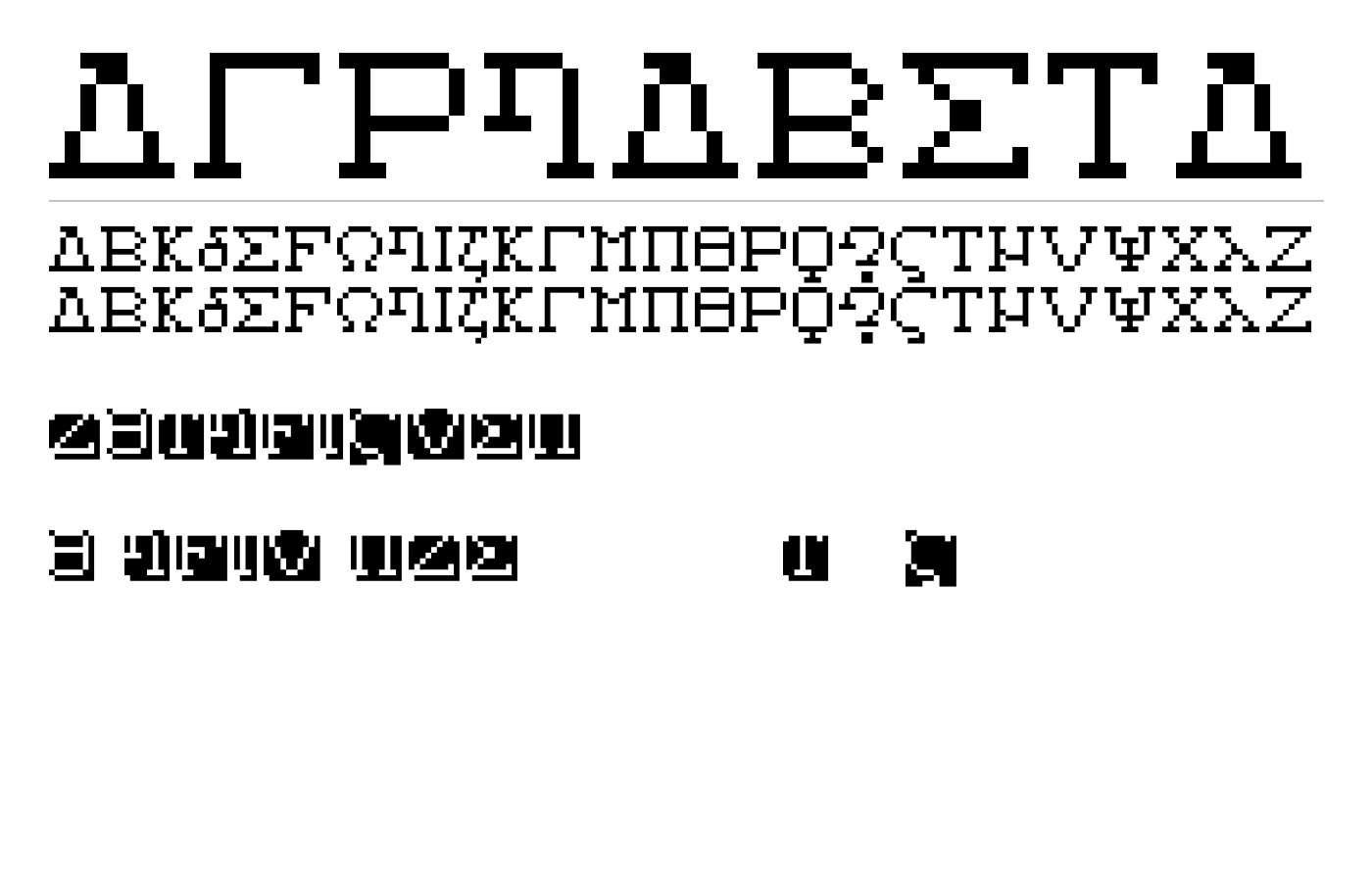
Alphabeta Font is a pixelated, monospace typeface featuring blocky, geometric shapes that evoke a retro digital or 8-bit video game style. Its bold, uniform weight and sharp, square edges give it a mechanized, tech-inspired personality, making it perfect for designs that aim to convey nostalgia, digital culture, or futuristic themes. This font works best in logos, headlines, and digital environments where a distinctive, eye-catching style is desired.
Alphabeta Font